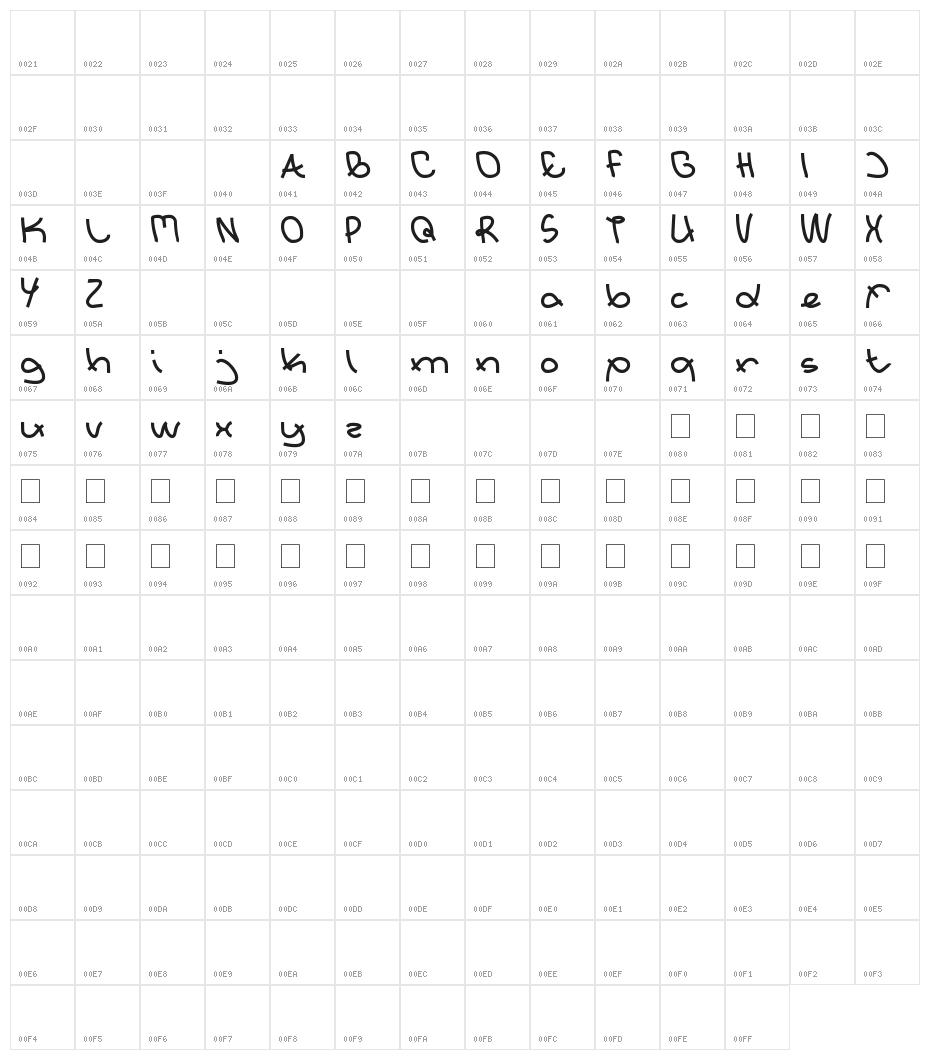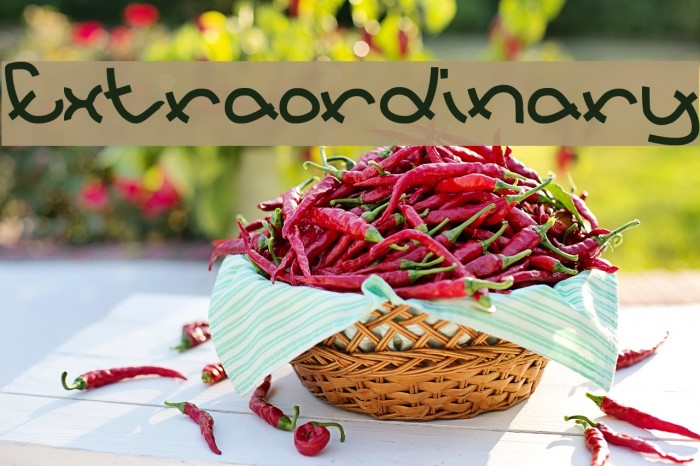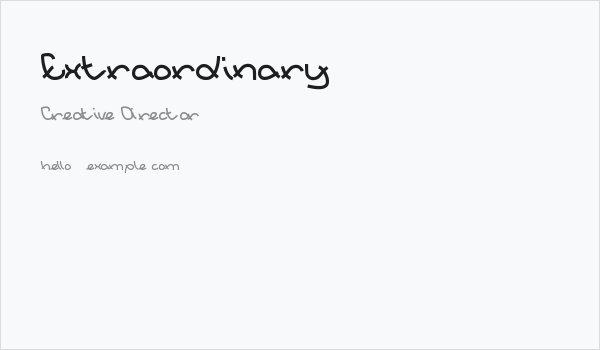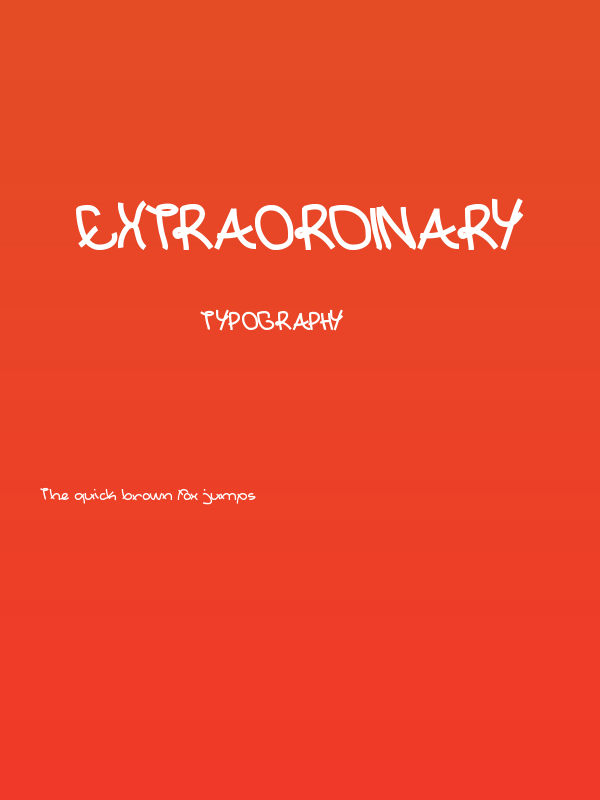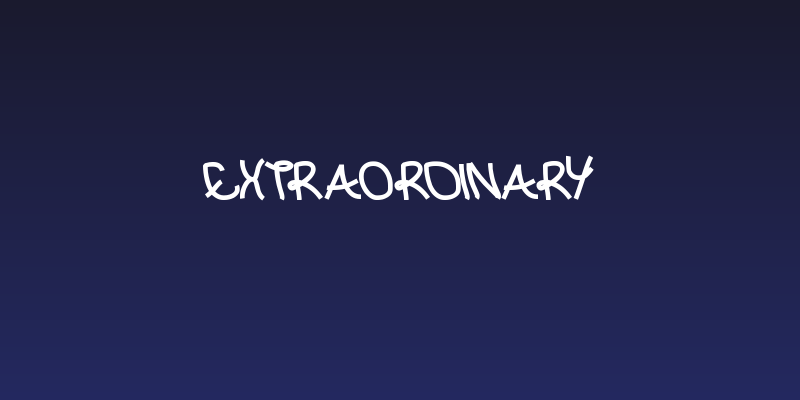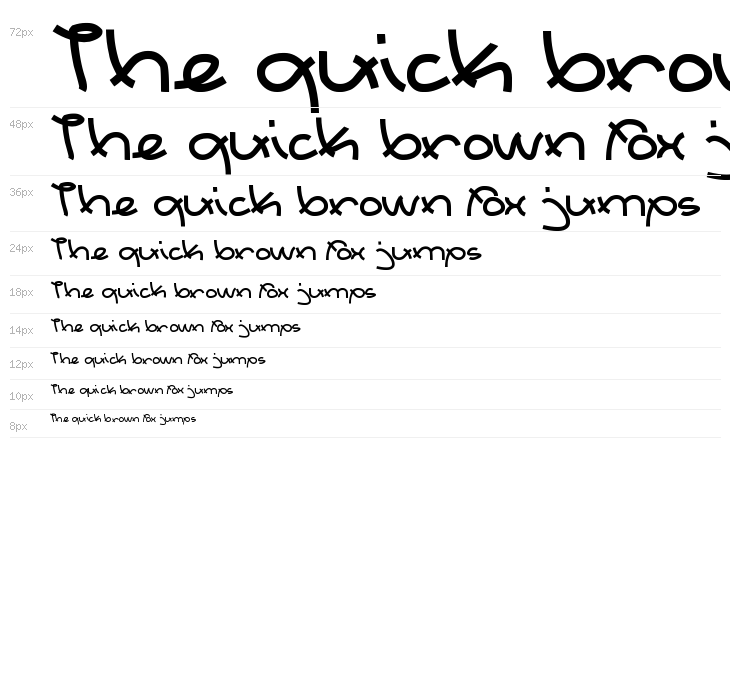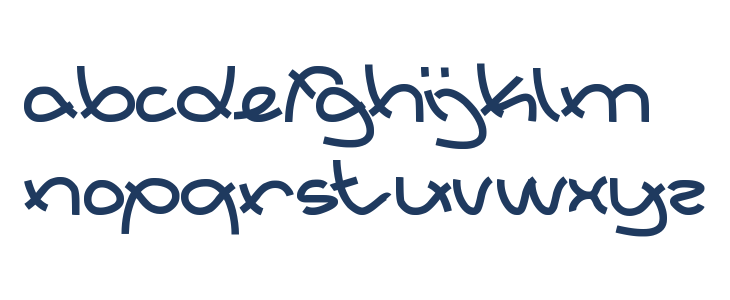
Extraordinary Font
Extraordinary Description
This playful and whimsical font features a handwritten style with a unique, casual flair. The letters are characterized by their rounded edges and slightly irregular shapes, giving them a friendly and approachable appearance. The uppercase and lowercase letters maintain a consistent style, with a slight slant that adds to the informal feel. The font's strokes vary slightly in thickness, providing a subtle contrast that enhances readability while maintaining a relaxed aesthetic. This font is perfect for projects that require a touch of personality and creativity, such as children's books, greeting cards, or playful branding materials.
| Proposed Projects | Ideal for children's books, greeting cards, playful branding, and creative projects. |